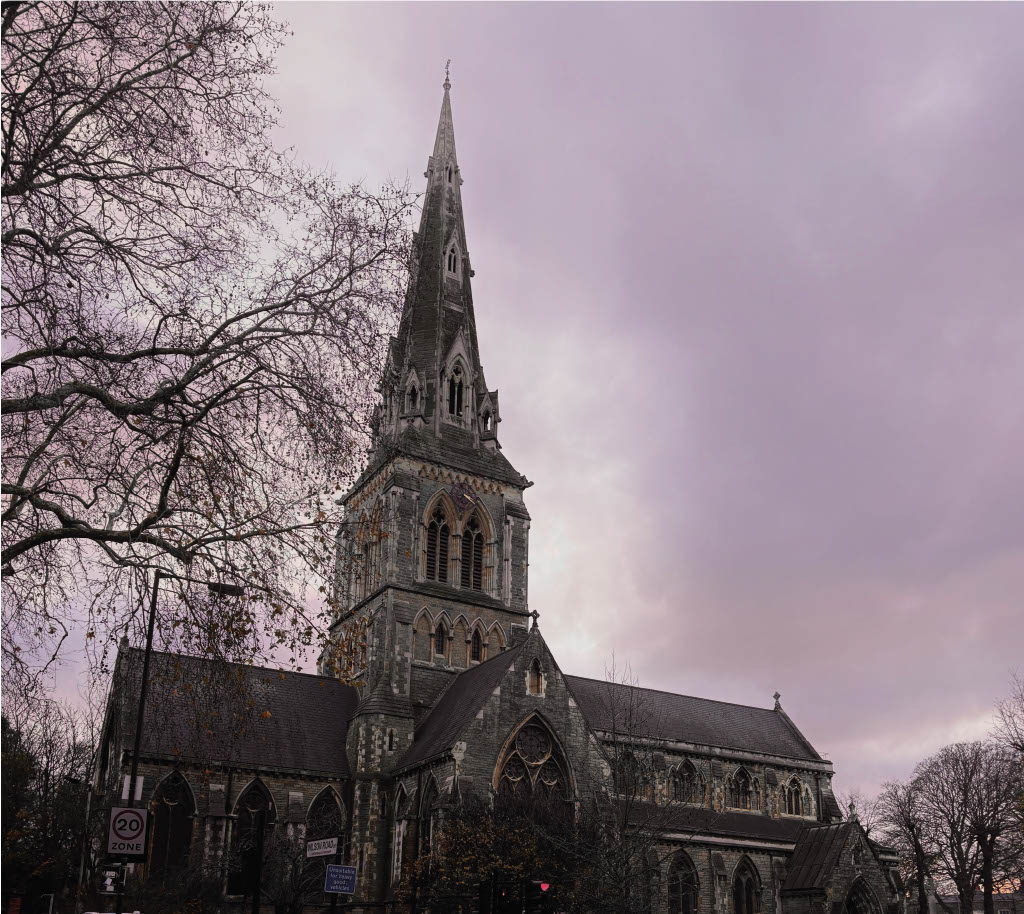
C minor is a display typeface inspired by the musical history of St. Giles Church in Camberwell. I was influenced by St. Giles' organ: it's one of the oldest in the country, and its presence in the church is fundamental for services but also for organised activities like 'Organoke'. The typeface is named after the key to one of my favourite worship songs, 'Ultralight Beam' by Sunday Service Choir. While designing my typeface, I used negative spaces to give the impression of the contrast between the white keys and the black ones on a piano keyboard.